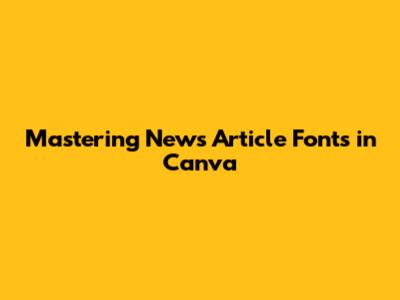
- Open Sans: Guys, if there's one workhorse font you should get to know for news articles, it's Open Sans. It's extremely versatile, offers a wide range of weights (light, regular, semi-bold, bold, extra-bold), and boasts excellent readability on screens. Its open forms prevent visual fatigue, making it perfect for lengthy body text in your news articles. Plus, it pairs beautifully with almost any other font. You can use a heavier weight for a clean, impactful headline and a lighter weight for the detailed body content.
- Lato: Another fantastic choice for a contemporary feel is Lato. It's friendly, yet professional, and incredibly legible. Lato offers a similar versatility to Open Sans, making it ideal for creating a clear typographic hierarchy within your Canva news articles. It feels modern without being overly trendy, which is crucial for news content that needs to maintain a sense of timelessness.
- Montserrat: This font brings a touch of urban style and geometric precision. It's bold and impactful, making it an excellent choice for headlines and subheadings where you want to grab attention. While it can work for body text in specific contexts, it truly shines when used for short, punchy statements. Pair it with a more traditional serif font for body text to create a dynamic contrast.
- Roboto: Developed by Google, Roboto is a default font on many Android devices, meaning it's optimized for screen readability. It's a neo-grotesque sans-serif with a natural reading rhythm. Like Open Sans, it has numerous weights, offering great flexibility for various elements of your news article, from a prominent title to the smaller print in captions.
- Playfair Display: Oh, Playfair Display is a stunner, especially for headlines and subheadings. It has a high contrast between thick and thin strokes, giving it a sophisticated, elegant, and classic journalistic appeal. While its delicate nature might make it less ideal for small body text, it absolutely shines as a display font that commands attention in your Canva news articles.
- Lora: Lora strikes a beautiful balance between a contemporary serif and a classic one. It's highly readable and has a warm, inviting quality. This makes it an excellent choice for body text in news articles where you want to convey a sense of depth and reflection, yet maintain modern readability. It pairs wonderfully with a clean sans-serif for headlines.
- Merriweather: Designed specifically for on-screen reading, Merriweather is a superb serif font for news article body text. Its sturdy structure and good x-height make it very legible even at smaller sizes, providing a comfortable reading experience. It has a slightly traditional feel without being old-fashioned, making it a reliable choice for any news content where clarity is king.
Hey there, content creators and aspiring journalists! Ever wondered why some news articles just pop and feel super credible, while others, well, fall a bit flat? A huge part of that magic, guys, often comes down to one often-overlooked hero: fonts. Yes, seriously! When you're crafting a news article in a powerful design tool like Canva, your font choices aren't just about making things look pretty; they're about communicating trust, readability, and the very essence of your message. In today's fast-paced digital world, where attention spans are shorter than ever, making sure your Canva news article font grabs and holds your audience's interest is absolutely crucial. This comprehensive guide is going to dive deep into how you can leverage Canva's incredible font library to create visually stunning and highly readable news content that truly resonates with your readers. We'll explore the best practices, top font recommendations, and pro tips to ensure your news articles not only look professional but also effectively convey your story. So, let's get ready to transform your Canva news article designs from good to absolutely great by mastering the art of font selection!
The Crucial Role of Fonts in News Articles
Let's get real for a sec, guys. The font you choose for your news article isn't just a design afterthought; it's a fundamental pillar of its effectiveness and credibility. Think about it: when you pick up a reputable newspaper or browse a trusted news site, what's the first thing you unconsciously notice? It's the overall visual feel, and a massive part of that feeling comes from the typography. Fonts dictate readability, set the tone, and profoundly impact how your audience perceives the information you're delivering. For a news article, these elements are absolutely paramount. A poorly chosen font can make even the most groundbreaking story seem amateurish, difficult to read, or worse, untrustworthy. Conversely, a thoughtfully selected Canva news article font can elevate your content, making it instantly engaging, authoritative, and easy on the eyes. We're talking about the difference between a reader quickly scanning and moving on, and them actually settling in to absorb every word of your meticulously researched piece.
One of the primary functions of fonts in news articles is to ensure optimal readability. News is about conveying information quickly and clearly. If your readers have to strain their eyes or struggle to differentiate between similar-looking characters, you've already lost them. This is where the magic of well-designed fonts comes in. They provide the visual clarity needed for efficient information consumption, which is especially vital in today's mobile-first world where people are often reading on smaller screens. A good Canva font for news articles will have clear letterforms, appropriate spacing, and excellent legibility even at smaller sizes. Imagine a headline set in a difficult-to-read script font – it might look artistic, but it utterly fails at its job of quickly informing the reader. News demands clarity and precision, and your font choice is the first step in delivering that.
Beyond mere readability, your chosen Canva news article font also establishes the tone and credibility of your content. Serif fonts, with their little "feet" at the ends of strokes (think Times New Roman), often evoke a sense of tradition, authority, and trustworthiness. They're historically associated with print newspapers and academic texts, lending an air of gravitas to your news articles. Sans-serif fonts, lacking these "feet" (think Arial or Helvetica), typically convey a more modern, clean, and straightforward feel. They are excellent for digital displays and provide a fresh, contemporary look. The key is understanding these subtle psychological impacts and choosing a font that aligns with the specific tone of your story. Are you delivering hard-hitting investigative journalism, a lighthearted human-interest piece, or a serious editorial? Your font helps communicate that nuance before a single word is read.
Furthermore, Canva's user-friendly interface makes experimenting with these font choices incredibly accessible. You don't need to be a seasoned graphic designer to understand the impact of typography; Canva empowers you to test different looks and feel the immediate difference. It simplifies the process of finding that perfect news article font that not only looks great but also performs its critical function of information delivery. By spending a little extra time on this seemingly small detail, you're actually investing in the overall quality, professionalism, and impact of your news content. So, remember, guys: never underestimate the power of a good font to make or break your news article. It's the silent workhorse behind every successful piece of journalism.